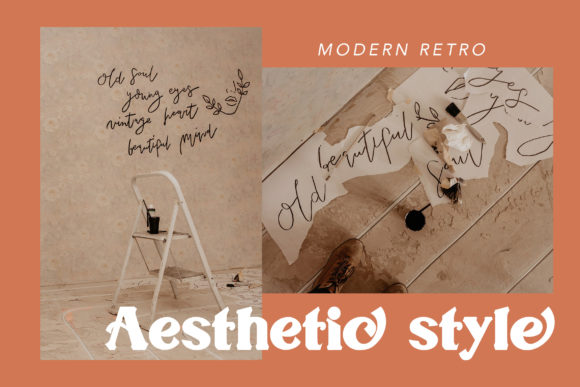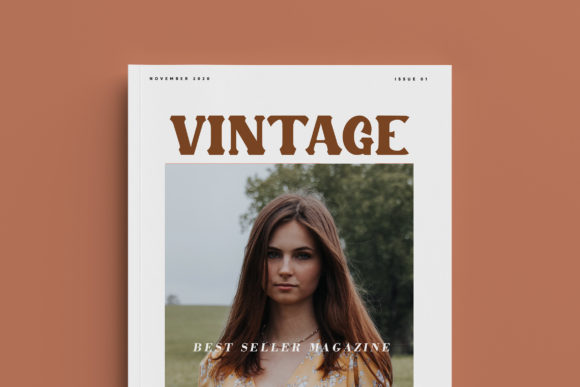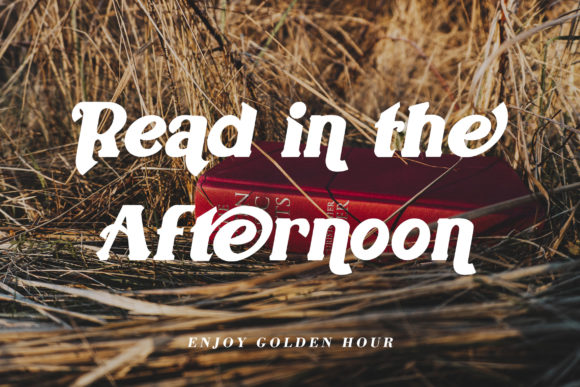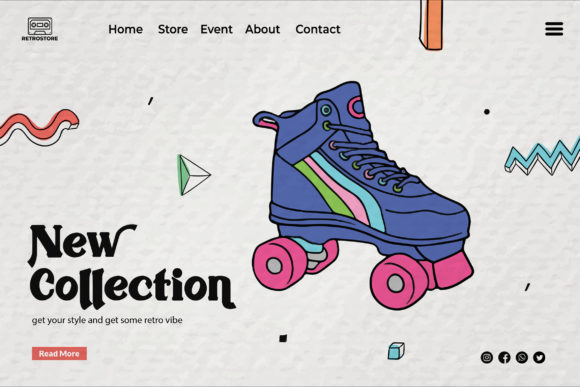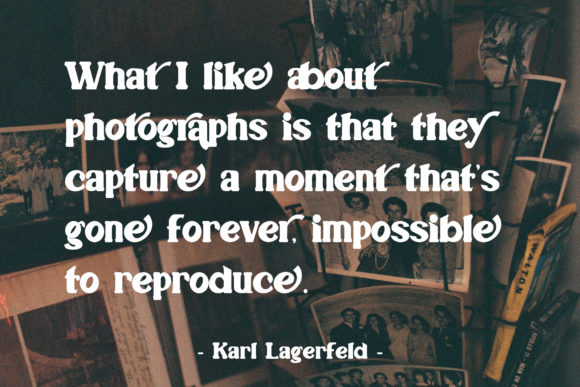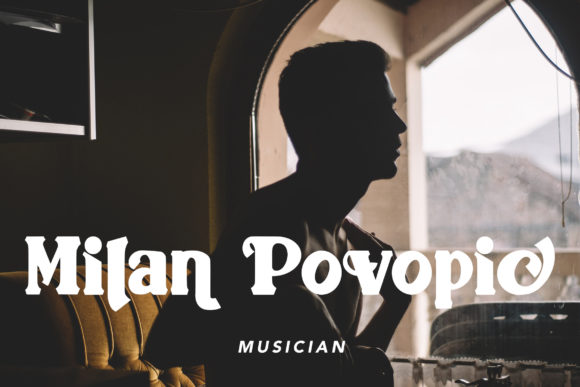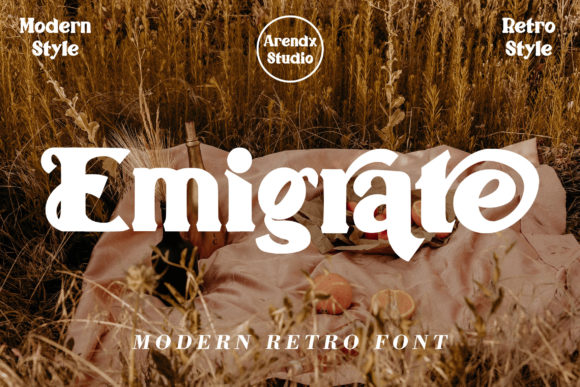
Introducing Emigrate Font: The Ultimate Retro Display Font
Are you tired of using the same old fonts in your designs? Do you want to add a touch of nostalgia and personality to your creations? Look no further than Emigrate Font, a cool, retro, and thick lettered display font that’s sure to elevate your font library.
What is Emigrate Font?
Emigrate Font is a unique and stylish display font that’s perfect for designers, crafters, and anyone looking to add a retro touch to their work. With its thick, bold letters and vintage flair, this font is sure to make a statement in any design.
Key Features of Emigrate Font
- Retro Style: Emigrate Font has a distinctly retro feel that’s perfect for designs that require a nostalgic touch.
- Thick Lettering: The font’s thick, bold letters make it perfect for headlines, titles, and other display text.
- Versatile: Emigrate Font can be used for a wide range of design projects, from posters and flyers to logos and branding.
- Easy to Read: Despite its bold style, Emigrate Font is easy to read, even at smaller sizes.
Why Use Emigrate Font?
So why should you choose Emigrate Font for your next design project? Here are just a few reasons:
- Add a Touch of Nostalgia: Emigrate Font’s retro style is sure to evoke memories of the past, making it perfect for designs that require a vintage feel.
- Stand Out from the Crowd: With its bold, thick letters, Emigrate Font is sure to grab attention and make your design stand out.
- Save Time: With Emigrate Font, you can create professional-looking designs in no time, without having to spend hours searching for the perfect font.
Who Can Use Emigrate Font?
Emigrate Font is perfect for a wide range of designers and crafters, including:
- Graphic Designers: Emigrate Font is perfect for graphic designers looking to add a touch of personality to their designs.
- Crafters: Whether you’re creating handmade cards, scrapbook pages, or other crafts, Emigrate Font is a great choice.
- Small Business Owners: If you’re looking for a unique and stylish font to use in your branding, Emigrate Font is a great option.
How to Use Emigrate Font
Using Emigrate Font is easy! Here are a few tips to get you started:
- Use it as a Display Font: Emigrate Font is perfect for headlines, titles, and other display text.
- Experiment with Colors: Emigrate Font looks great in a wide range of colors, so don’t be afraid to experiment and find the perfect hue for your design.
- Pair it with Other Fonts: Emigrate Font pairs well with a wide range of other fonts, so feel free to get creative and find the perfect combination for your design.
In conclusion, Emigrate Font is a cool, retro, and thick lettered display font that’s perfect for designers, crafters, and anyone looking to add a touch of personality to their work. With its versatile style, ease of use, and wide range of applications, Emigrate Font is sure to become a staple in your font library.